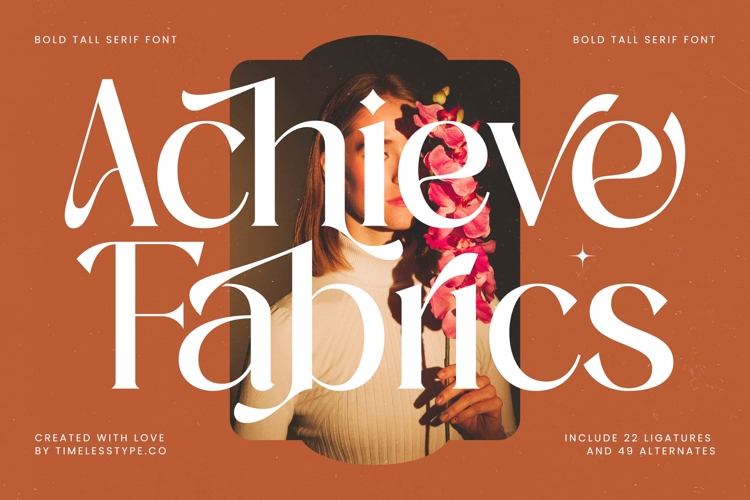
Achieve Fabrics - Bold Tall Serif Font
Discover ultimate visual distinction with Font Achieve Fabrics - Bold Tall Serif Font Serif Display. This exquisite typeface masterfully blends bold presence with refined grace, offering a sophisticated aesthetic that commands immediate attention. Its towering stature and elegant, high-contrast serifs create an instant impression of luxury and prestige, perfect for designs that truly aspire to make an impactful statement.
Meticulously crafted, Font Achieve Fabrics - Bold Tall Serif Font Serif Display features stunning strokes and sweeping curves that exude timeless elegance. An impressive collection of 22 ligatures and 49 alternates grants designers extensive creative control, allowing for customizable typography and unique, memorable outcomes. This rich array of stylistic possibilities ensures unparalleled design flexibility.
Elevate your projects with unparalleled sophistication. Font Achieve Fabrics - Bold Tall Serif Font Serif Display is ideally suited for luxury branding, exclusive packaging, high-end editorial design, and captivating fashion campaigns. It is perfect for impactful headlines, magazine layouts, and premium invitations. With its extensive multilingual support, Font Achieve Fabrics - Bold Tall Serif Font Serif Display adapts seamlessly across global markets, making it incredibly versatile for international projects.
Invest in a typeface that delivers both aesthetic brilliance and practical utility. Font Achieve Fabrics - Bold Tall Serif Font Serif Display is a powerful statement of premium appeal and lasting quality. Choose this exceptional display serif to infuse your designs with a captivating blend of classic charm and modern boldness, ensuring your message resonates with authority and enduring style.